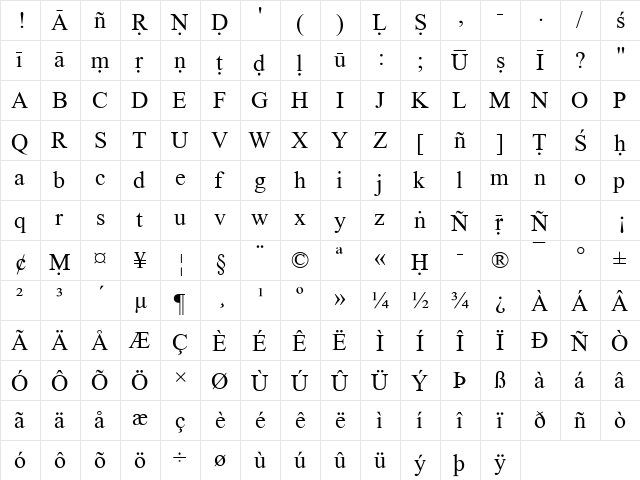
Times Pali Regular
Design Context for Times Pali Typeface
Times Pali offers clean, dependable letterforms without strong stylistic allegiance, making it a practical choice for designers who need flexibility.
Pro Tip: Pair Times Pali with a font of contrasting weight or personality to build a more expressive typographic hierarchy.